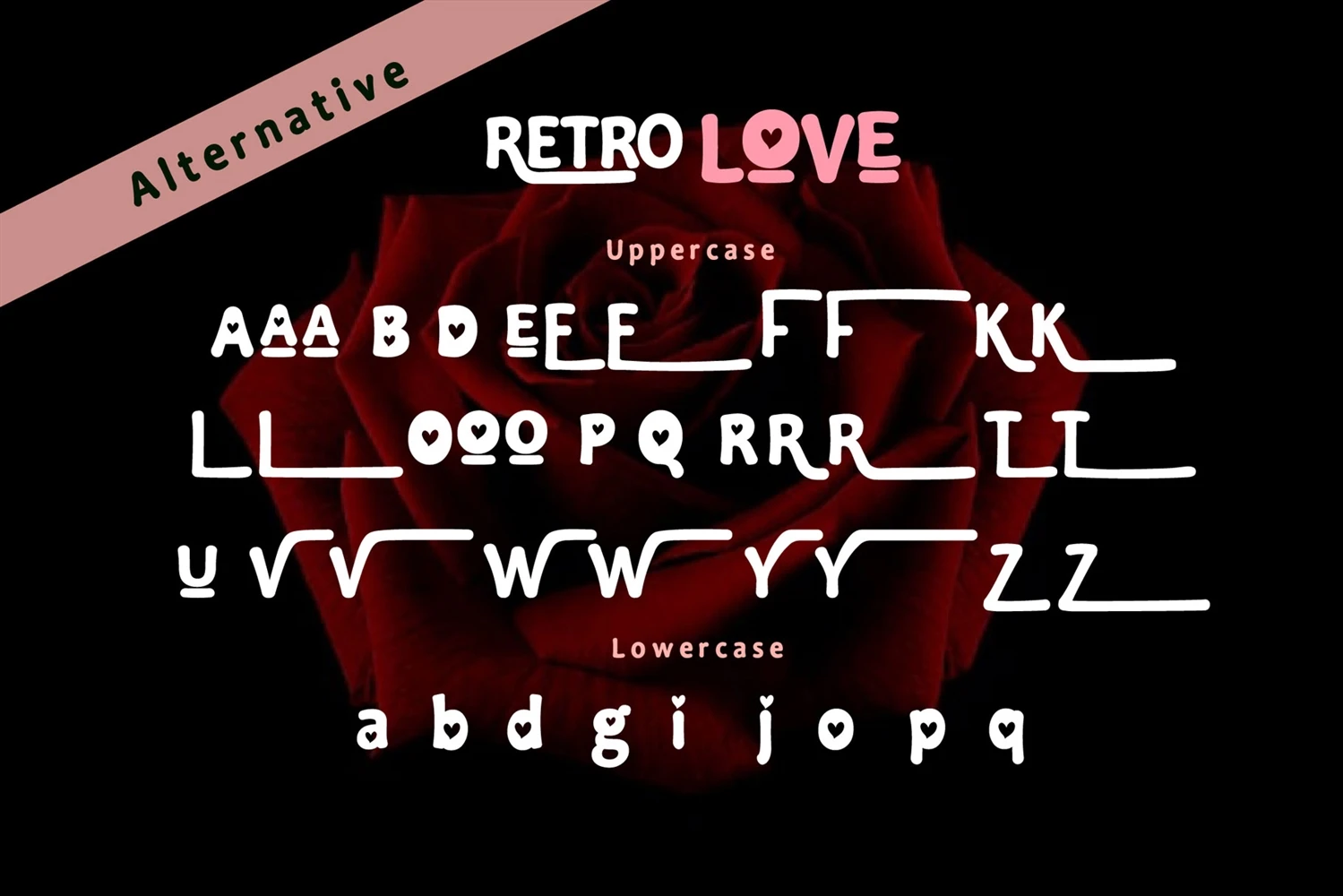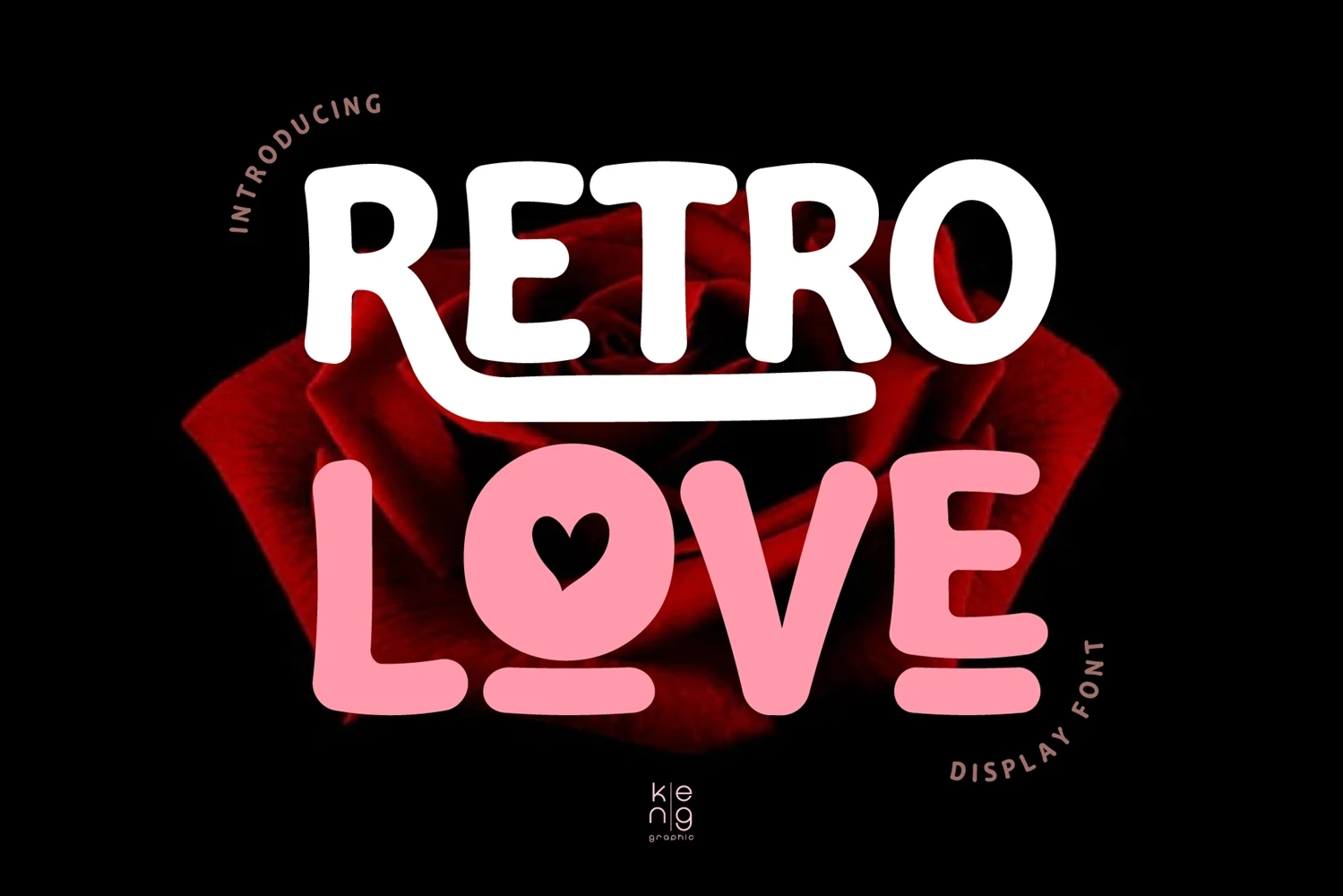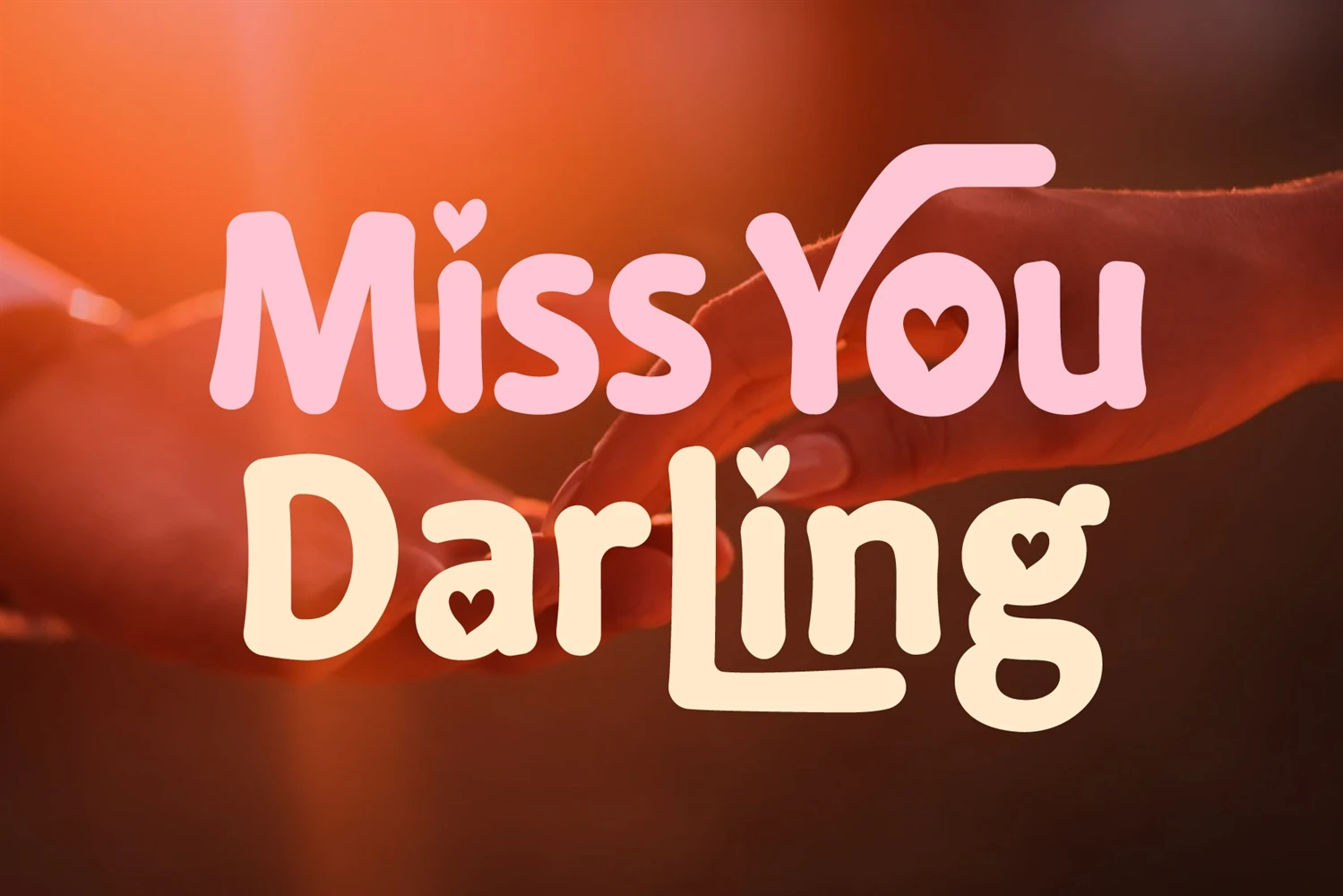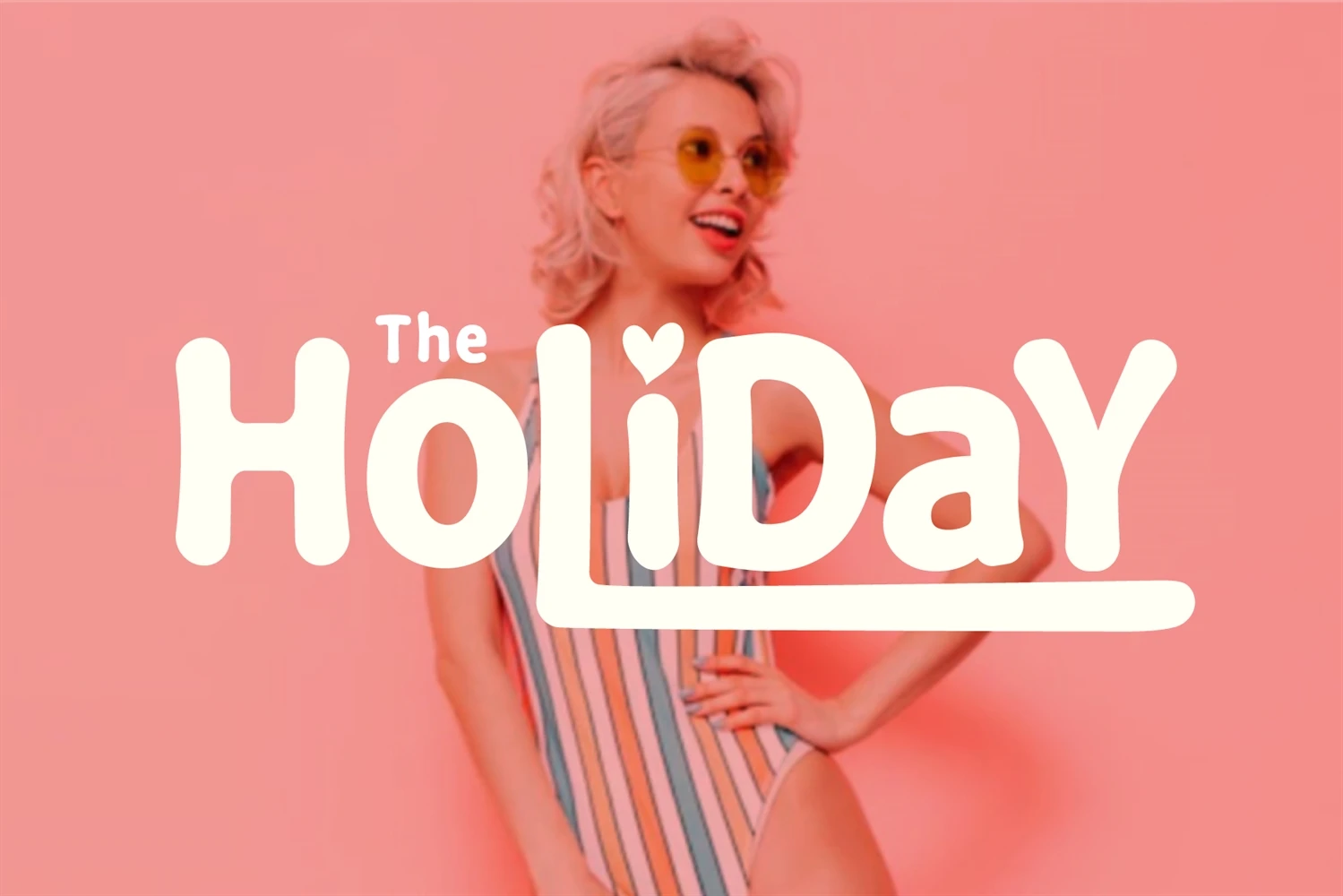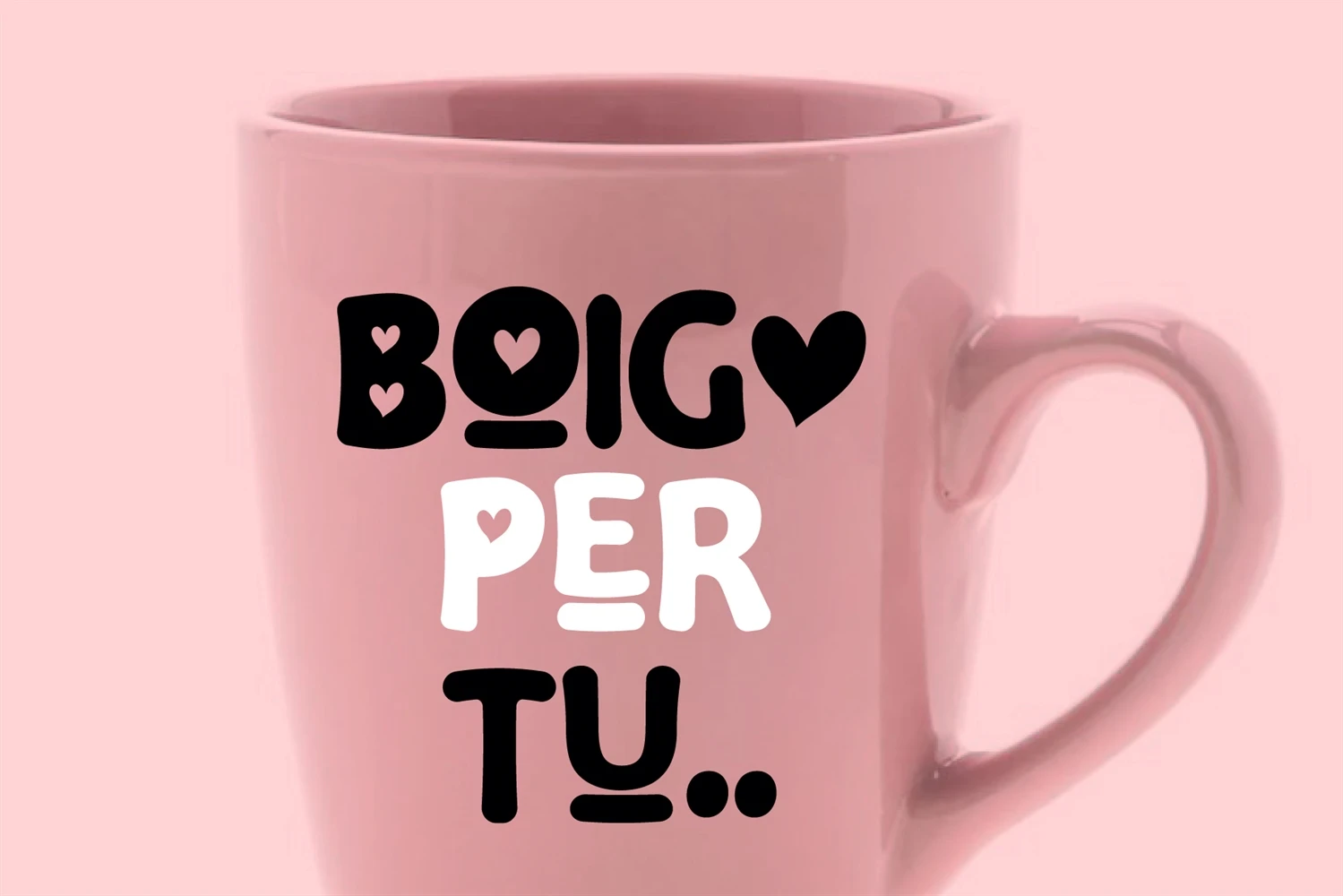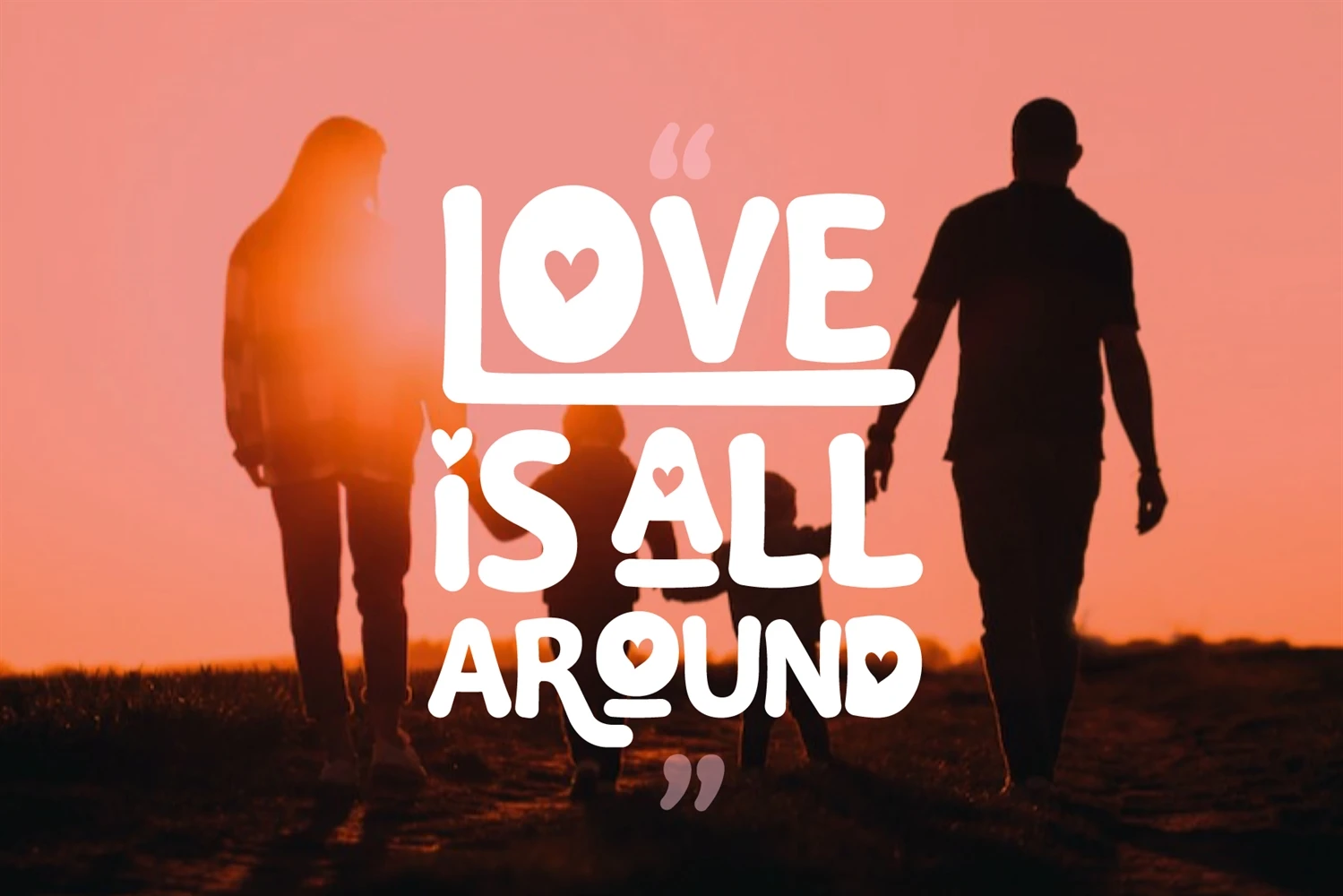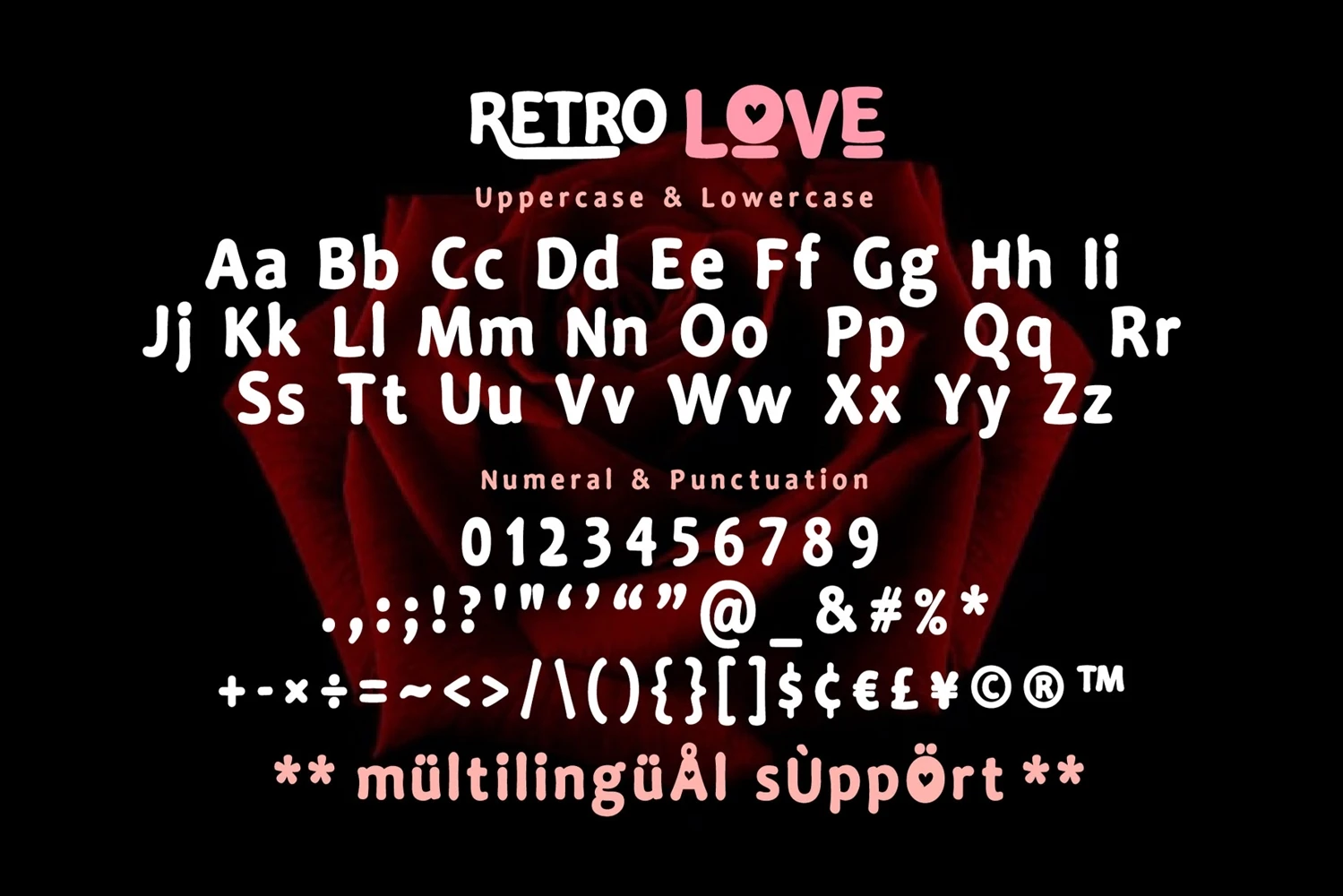
Retro Love Font is a display font of retro style with a great punch. It will work great for comic book style, online games, cards, love shirts, posters, movie titles, eye-catching social media posts, or anything that requires youthfulness and courage.